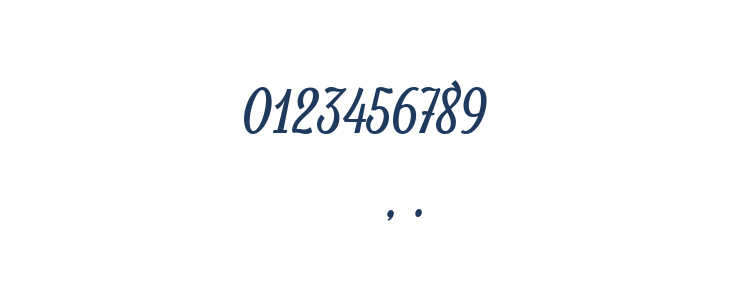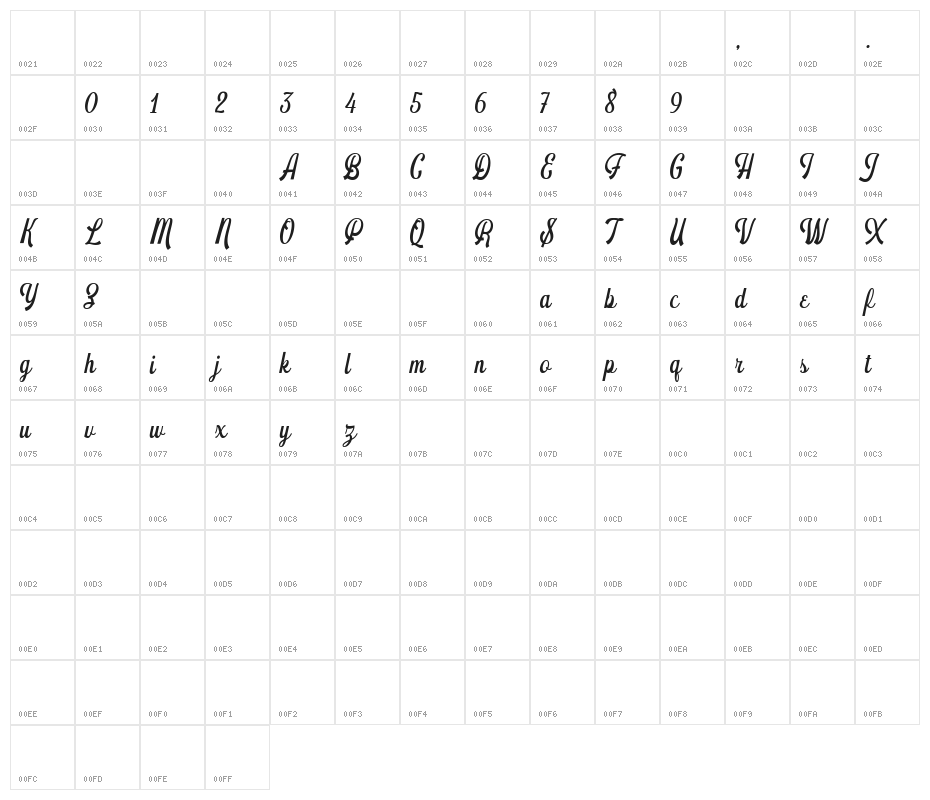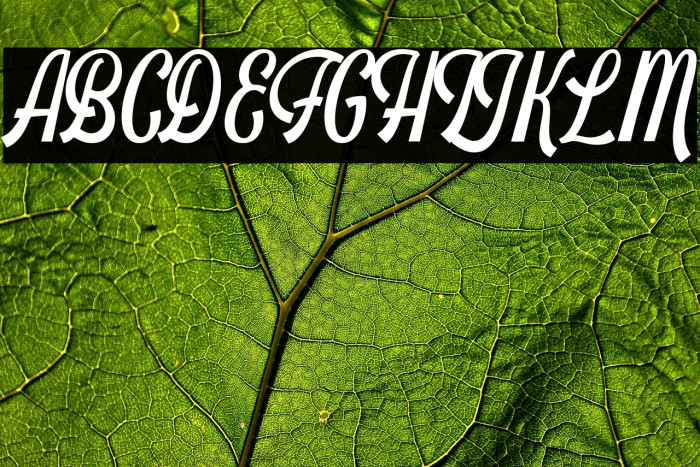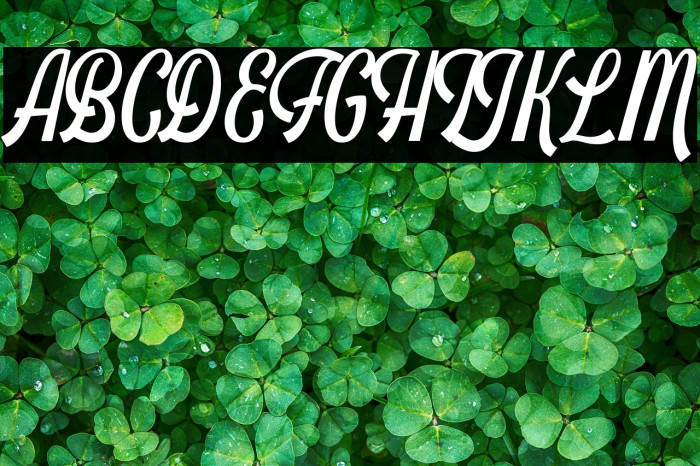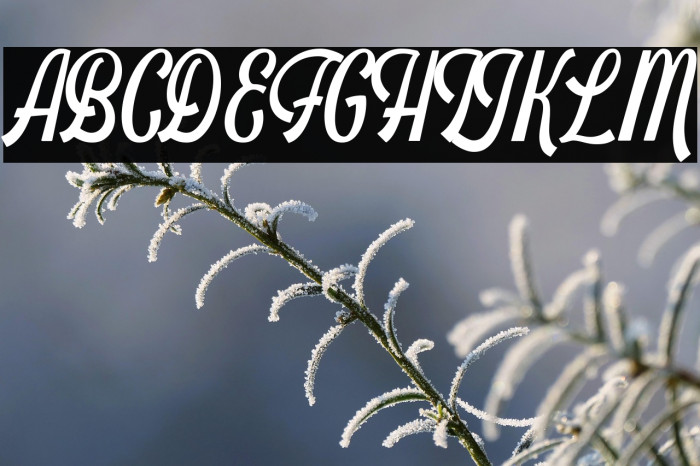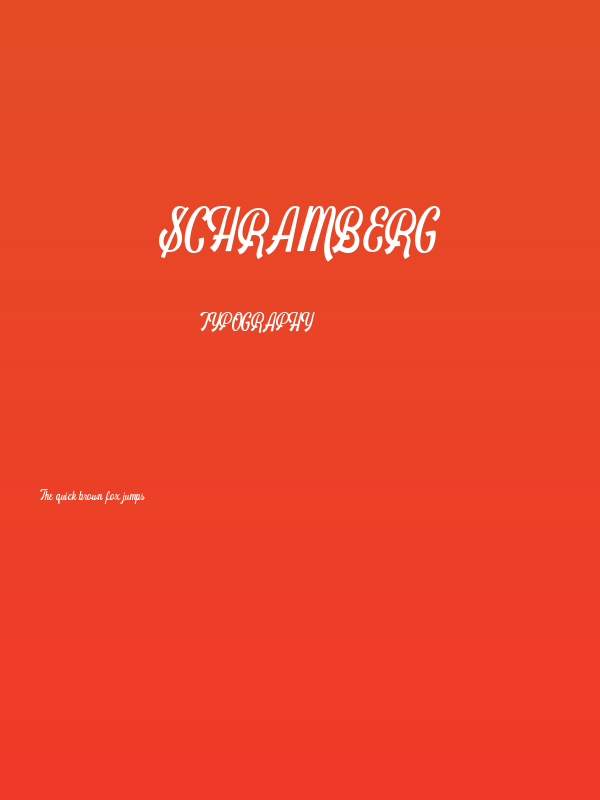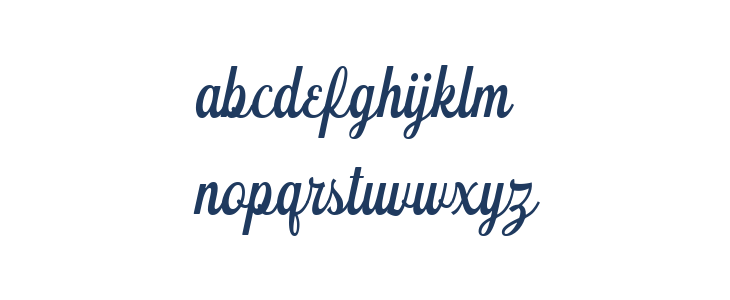
Schramberg Font
Schramberg Description
This font features a dynamic and elegant script style with a flowing, cursive appearance. The uppercase letters are bold and slightly slanted, giving a sense of movement and sophistication. The lowercase letters maintain a consistent style, with smooth curves and a slight slant that complements the uppercase. The numerals are clear and legible, matching the overall script style. Special characters are integrated seamlessly, maintaining the font's cohesive look. This font's design is ideal for projects that require a touch of elegance and flair.
| Overall Style | Elegant, Decorative |
| Proposed Projects | Ideal for wedding invitations, elegant branding, greeting cards, and decorative headlines. |